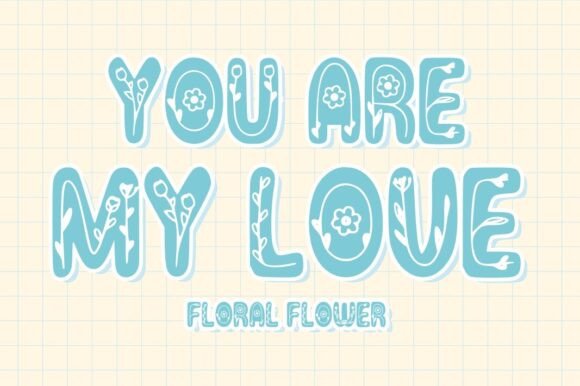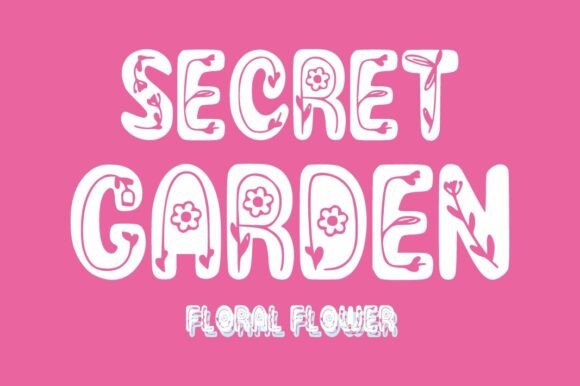
Introduction to Floral Flower Font
Introducing “Floral Flower”, a charmingly bold typeface that exudes an inviting playfulness in every curve.
With its distinctly rounded edges, it carries a sense of gentle friendliness, making it a delightful match for a child’s eye Each letter brims with intricately designed lines reminiscent of frolicking florals, lending an air of whimsy and creativity to your project’s texture.